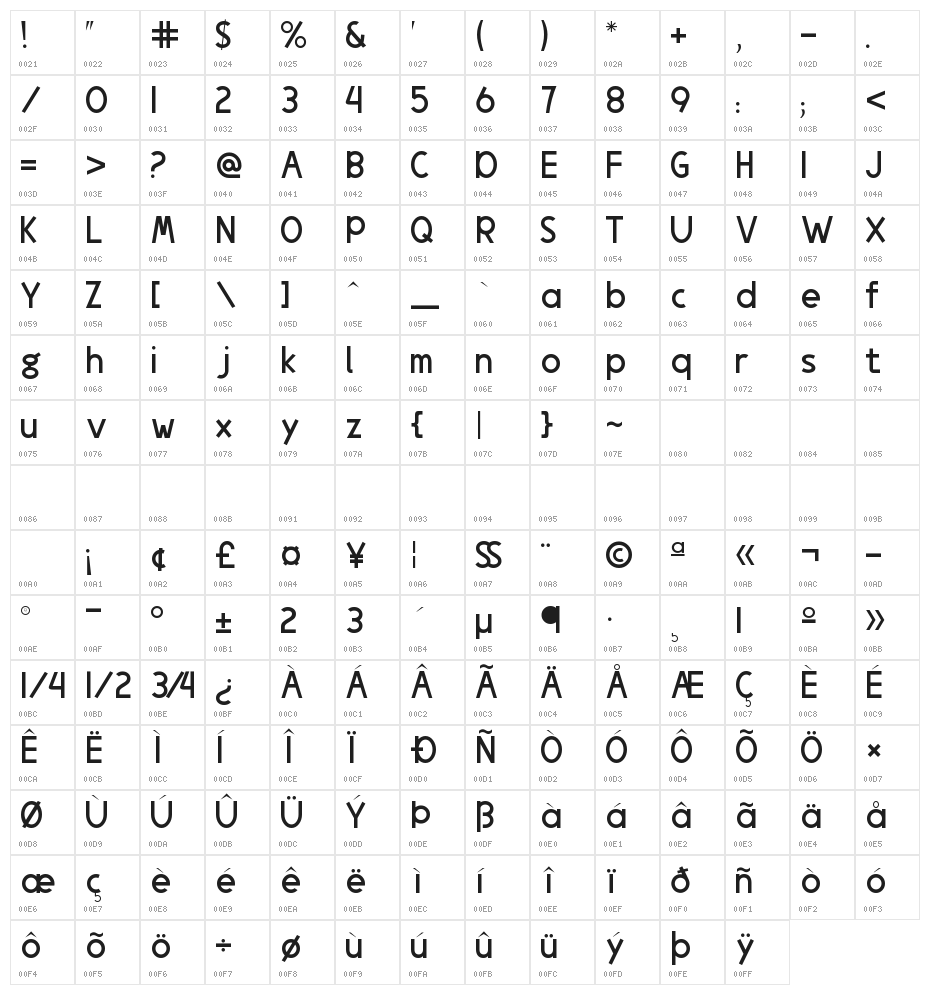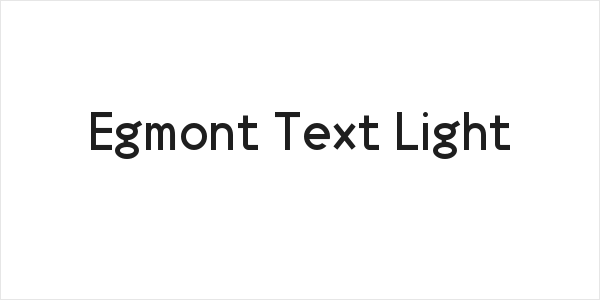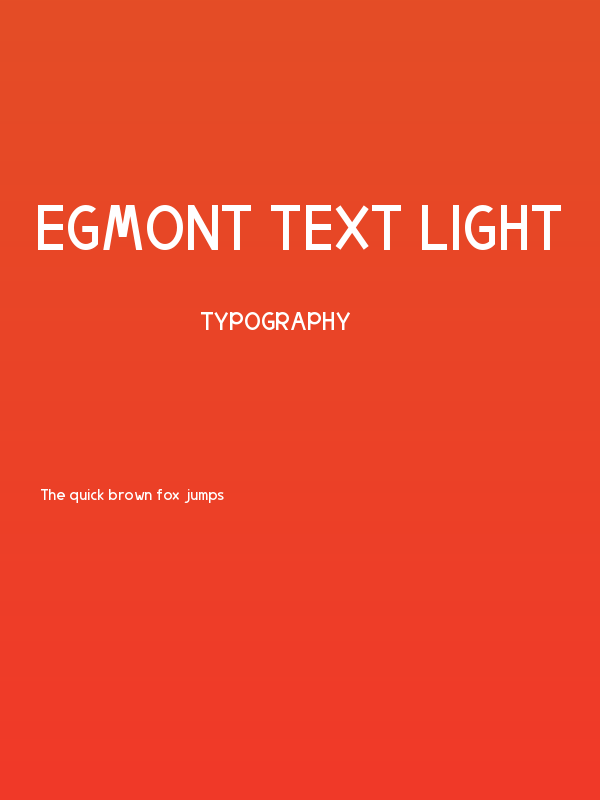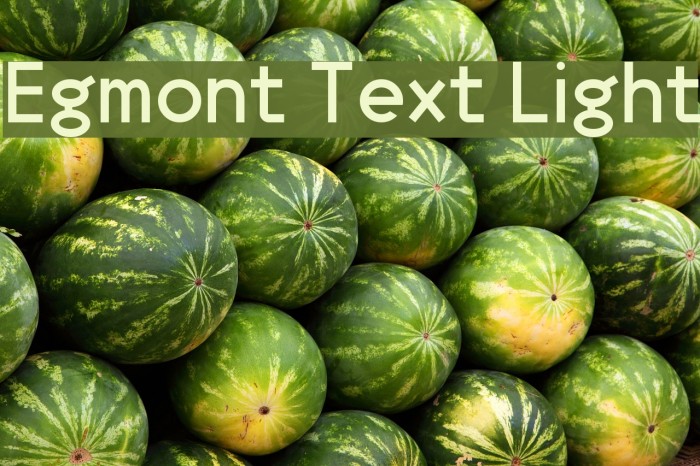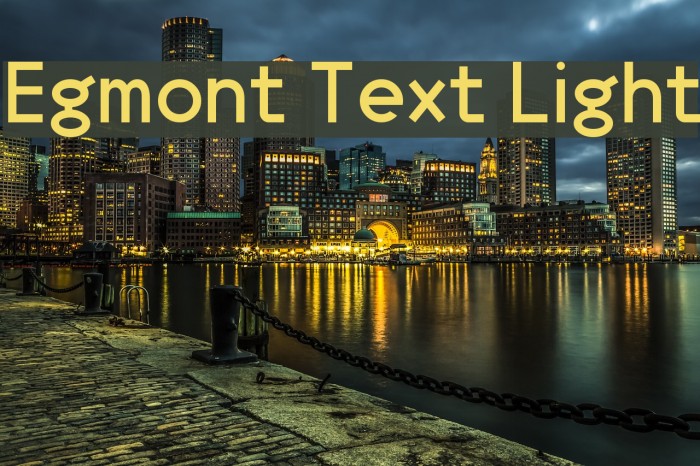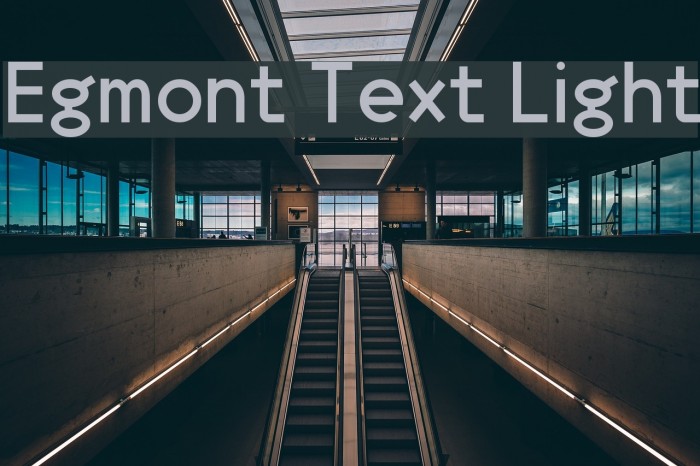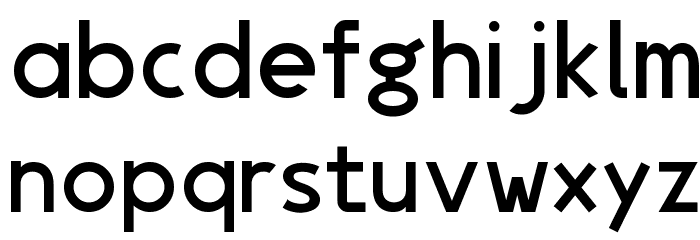
Egmont Text Light Font
Egmont Text Light Description
This typeface features a clean and modern sans-serif design, characterized by its geometric shapes and uniform stroke widths. The uppercase letters are bold and assertive, while the lowercase letters maintain a consistent and harmonious flow. The numerals are clear and easily distinguishable, making them suitable for various applications. The special characters are well-integrated, offering a complete set for diverse typographic needs. Overall, the font exudes a sense of clarity and professionalism, making it ideal for both digital and print media.
| Proposed Projects | Ideal for branding, editorial design, web design, and corporate materials. |